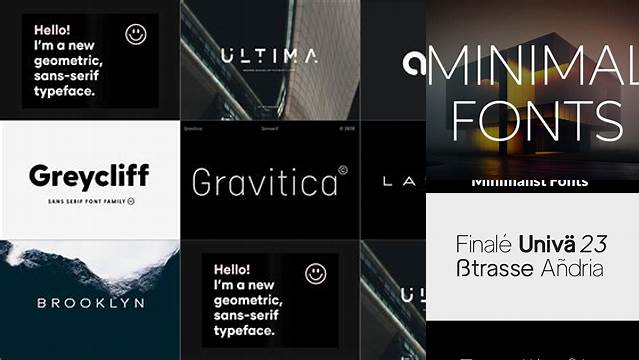
Best Minimalist Fonts For Websites
Best Minimalist Fonts for Websites are crucial for creating a modern, clean, and user-friendly online presence. Choosing the right font can significantly impact your website's readability, aesthetics, and overall user experience. In this guide, we'll explore some of the best minimalist fonts available, discuss their characteristics, and offer tips on how to effectively implement them on your website. Understanding these fonts and their applications will empower you to design a website that is both visually appealing and highly functional, ensuring your message resonates with your audience. The goal is to help you select fonts that enhance your brand identity and provide a seamless browsing experience, ultimately leading to increased engagement and conversions. From classic choices to contemporary options, let's dive into the world of minimalist typography.
What Defines a Minimalist Font?
So, what exactly makes a font minimalist? Well, guys, it's all about simplicity, clarity, and a focus on functionality. Minimalist fonts typically feature clean lines, uncluttered designs, and a lack of excessive ornamentation. They aim to communicate effectively without distracting the reader. Think about it: you want your website to be easy to read, right? That's where these fonts shine. Key characteristics often include a lack of serifs (serif fonts have small strokes at the end of letters, while sans-serif fonts don't), consistent stroke weights, and a balanced visual appearance. These fonts often prioritize readability, making them ideal for body text, headings, and calls to action. A minimalist font should blend seamlessly into the design, allowing the content to take center stage. It's like wearing a simple, well-fitted outfit – it complements you without being overwhelming. Furthermore, these fonts are often versatile, working well across various design contexts, from sleek corporate websites to personal blogs. The goal is always to create a design that is both timeless and modern. They are designed to be visually accessible, regardless of the device or screen size. This versatility is critical for a positive user experience. The choice of a minimalist font should align with the overall design philosophy of the website, ensuring a cohesive and professional aesthetic. Consider the specific needs of your content and audience when selecting a font. Minimalist fonts serve as the foundation for clear and effective communication, making them a cornerstone of modern web design. They contribute to a sense of order and visual harmony, which is crucial for keeping visitors engaged and informed.
Top Minimalist Font Choices for Your Website
Alright, let's get down to the best minimalist fonts for websites! Here's a rundown of some of the top choices that designers frequently use. Each font has its unique personality and characteristics, so you'll want to consider what best suits your website's style and purpose.
1. Open Sans
Open Sans is a widely popular sans-serif font known for its friendly and approachable appearance. Its open forms and neutral style make it highly readable at various sizes, making it a fantastic choice for both headings and body text. Designed by Steve Matteson, Open Sans was specifically optimized for print, web, and mobile interfaces. Its versatility makes it a great all-around option, capable of adapting to almost any design. It’s the go-to for many, and for good reason. It's available in a wide range of weights, which makes it flexible and adaptable for various design needs. From thin to bold, you can create a clear hierarchy and emphasize important information. Because it's a Google Font, Open Sans is also free to use, making it a cost-effective option for any project. This accessibility further enhances its popularity among designers. It’s often used in the content of websites because it contributes to a comfortable and visually pleasing reading experience. Due to its versatility and accessibility, Open Sans is a great choice for any website looking to adopt a minimalist design. The wide spacing and clear letterforms make it easy on the eyes, keeping users engaged with your content. It’s a reliable choice that performs well across different devices and screen resolutions, so you're ensured that it will look good on every platform.
2. Lato
Lato is another excellent sans-serif font that is known for its friendly yet sophisticated feel. Designed by Łukasz Dziedzic, Lato's semi-rounded letterforms give it a warm and approachable appearance. It maintains a high level of readability and works wonderfully for both headings and body text. What's cool about Lato is its ability to strike a balance between elegance and simplicity. It's got a bit of personality while still staying clean and minimalist. The font offers a comprehensive set of weights and styles, allowing for great design flexibility. This includes support for italics, bold, and condensed versions, making it possible to create visual interest. Its clean lines and balanced design make it a great option for websites that aim for a professional yet approachable aesthetic. Lato’s versatility also makes it a good choice for various design contexts, including web and print. The clear letterforms ensure that your content is easy to read, enhancing the user experience. Because of its elegant and flexible design, Lato is considered a favorite choice for modern websites. It provides an excellent combination of readability and visual appeal, helping to ensure that your content is easily accessible and engaging for users. It's a great option if you want a minimalist font that has a touch of sophistication.
3. Montserrat
Montserrat is a geometric sans-serif font inspired by the urban landscape of Buenos Aires. It’s designed by Julieta Ulanovsky, who drew inspiration from the historic Montserrat neighborhood. This font has a distinctive look, making it perfect for headings and titles. Its clean, geometric shapes give it a modern and stylish appearance. Although it's a great choice for headlines, it can also be used for shorter body text sections. The geometric design lends itself well to a variety of applications. Montserrat offers a wide variety of weights and styles, so you can customize it to fit your project's aesthetic. This versatility makes it adaptable to different types of web design. Its clean lines and balanced design make it suitable for both modern and classic website layouts. Because it is available on Google Fonts, Montserrat is free for commercial use, just like Open Sans. If you want a font that's bold, clean, and stands out, Montserrat is definitely worth a look. It has a strong presence and helps make your website look chic and memorable. It's a good option for those who want a font with some character, a perfect choice to give your website a unique and stylish edge. It provides a balance of elegance and modernity, ensuring your website's visual appeal. Its clean and structured design is suitable for diverse design styles.
4. Roboto
Roboto is a sans-serif font developed by Google and is the default font for Android. It's designed to be highly readable and accessible on different devices and screen sizes. The font is known for its mechanical yet friendly appearance. Roboto is an excellent choice for those who are aiming for a clean, modern look. It is versatile and suits both headings and body text due to its clear letterforms. The design of Roboto strikes a balance between form and function, which allows it to excel in various digital environments. It offers multiple weights and styles, allowing designers to create a visual hierarchy and emphasize critical content. Because Roboto is a Google Font, it's free and easy to implement, and it’s also well-supported across browsers and devices. This makes it a practical and reliable option for web designers. It works well in a variety of design contexts, from mobile apps to complex websites. Its readability makes it a solid choice to ensure your content is accessible and engaging. The combination of readability and modern design makes Roboto a reliable choice for those who value functionality and simplicity.
5. Source Sans Pro
Source Sans Pro is a sans-serif font designed by Paul D. Hunt and is specifically optimized for user interfaces. Its clean design and excellent readability make it perfect for both headings and body text. The font is designed to perform well across different devices and resolutions, making it suitable for responsive web design. It is an open-source font that's available for free, making it a great option for any project. Its neutral style makes it a versatile choice for almost any website design. Source Sans Pro is also known for its clear and distinct letterforms, contributing to excellent readability. Its clean and simple design ensures your content is easy to read. The versatility and readability make Source Sans Pro a good option to consider for minimalist websites. The well-defined character shapes make it a great choice for large blocks of text, ensuring a comfortable reading experience. The balanced and clean appearance of the font helps to ensure a visually appealing website design.
Tips for Implementing Minimalist Fonts
Alright, you've got your best minimalist fonts for websites picked out. Here's how to make sure you implement them right.
1. Prioritize Readability: Always ensure your chosen font is easy to read, especially for body text. Test the font at various sizes and weights to ensure it looks good on different screen sizes. Remember, if people can't easily read your content, they're not going to stick around.
2. Create a Visual Hierarchy: Use different font weights, sizes, and styles to create a clear visual hierarchy. This helps guide the reader's eye and makes your website more organized. Make sure your headings and subheadings stand out, making it easier for visitors to scan the content.
3. Choose the Right Pairings: Not all fonts play well together, guys. Experiment with different font pairings to find a combination that works for your brand. You want fonts that complement each other, creating a cohesive design. Don't overdo it; generally, stick to a maximum of two or three fonts.
Conclusion: Embrace Minimalism in Web Design
Minimalist fonts for websites are more than just aesthetically pleasing; they are essential for creating a functional and user-friendly online experience. Choosing the right font can enhance readability, communicate your brand's identity, and improve user engagement. By using the best minimalist fonts available, you're able to focus on clean design. Consider the unique characteristics of fonts like Open Sans, Lato, Montserrat, Roboto, and Source Sans Pro, and think about how they align with your brand's voice. By combining these fonts with appropriate implementation techniques, you can achieve a website that's both visually appealing and effective in conveying your message. So, guys, go out there and embrace minimalism in your web design, and watch your website thrive!